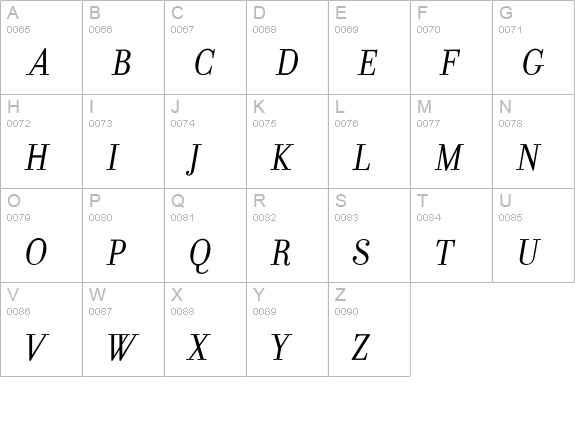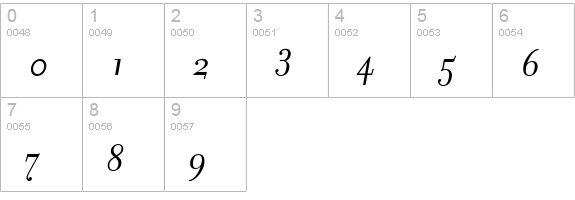
Filosofia-Italic is a distinctive, italic variant in the Filosofia typeface family \xE2\x80\x94 well suited to design and typography projects.
Filosofia-Italic is a stunning and elegant typeface that exudes sophistication and grace. With its sleek lines and graceful curves, this font is perfect for adding a touch of class to any design project. The italic style of Filosofia-Italic adds a sense of movement and fluidity, making it ideal for conveying a sense of elegance and refinement. What makes Filosofia-Italic even more appealing is the fact that it is available for free download at FontsMarket.com. This means that you can easily access this beautiful font and use it in your projects without any cost. Whether you are working on a branding project, a wedding invitation, or a website design, Filosofia-Italic is sure to elevate your work and give it a touch of sophistication. Download it today and enhance your designs with this exquisite typeface.